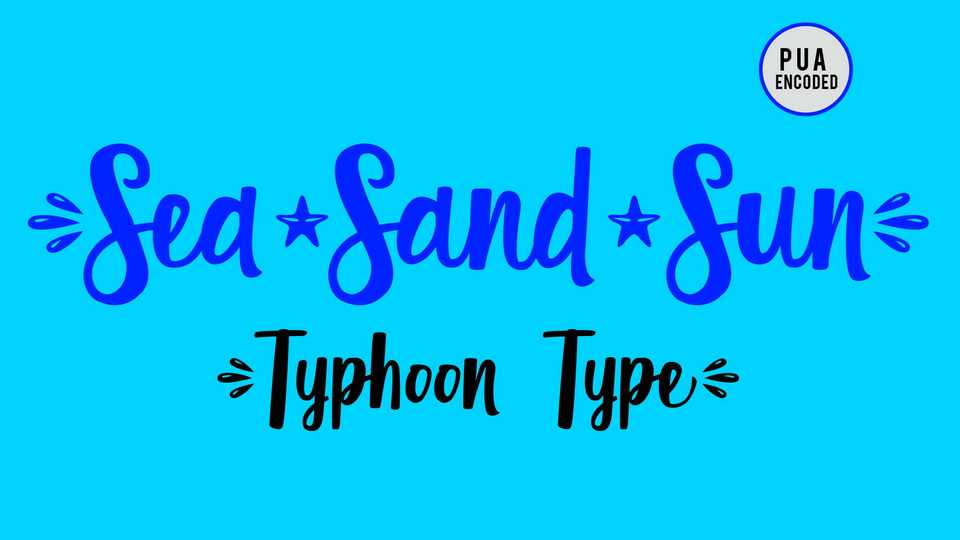
Download Sea Sand Sun font a sweet, whimsical, flowing handwritten typeface Featuring characters that dance along the baseline, Sea Sand Sun will add a luxury spark to any design project.
Designer: TyphoonType